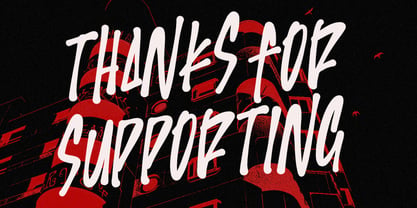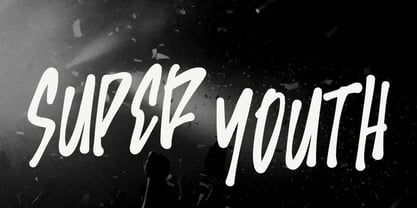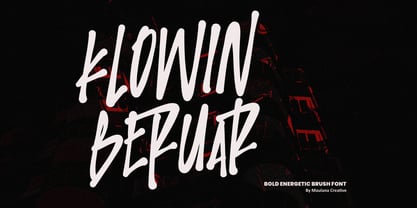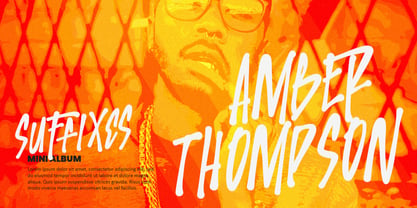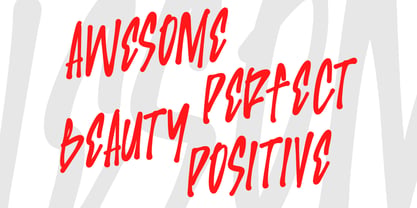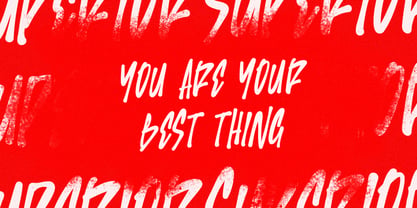
MC Klowin Beruar
by Maulana Creative
The MC Klowin Beruar Font Family was designed by Gilang Maulana and published by Maulana Creative. MC Klowin Beruar contains 1 styles. More about this family
Unleash your creativity with Klowin Beruar, a powerful and dynamic display font. Featuring bold, hand-drawn brush strokes, this typeface captures a raw, authentic energy that is perfect for making a statement. Klowin Beruar is more than just a font; it's an attitude. Its free-flowing, urban aesthetic makes it ideal for projects that demand attention. Use it for music, edgy designs, social media, or event promotions. Its versatility shines across various applications, including branding, editorial design, and advertising, making it a standout choice for creative professionals.
Designers: Gilang Maulana
Foundry: Maulana Creative